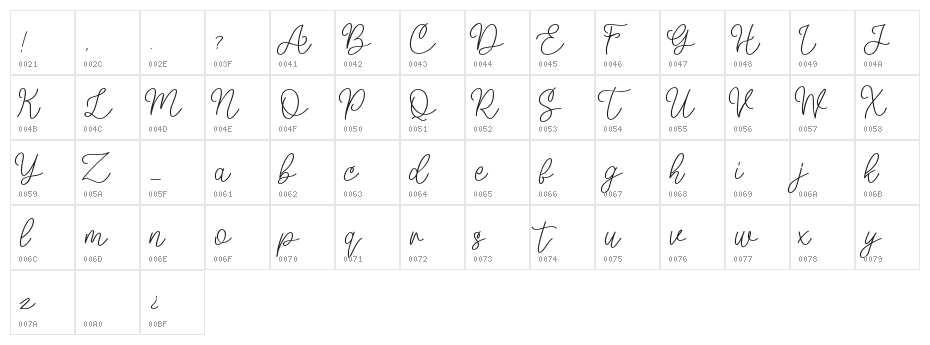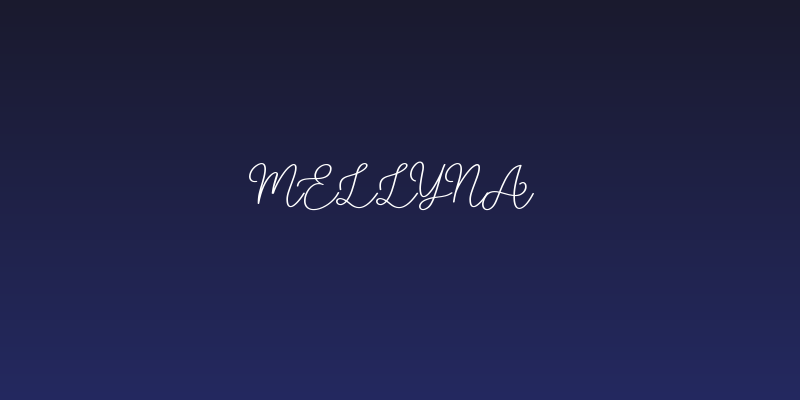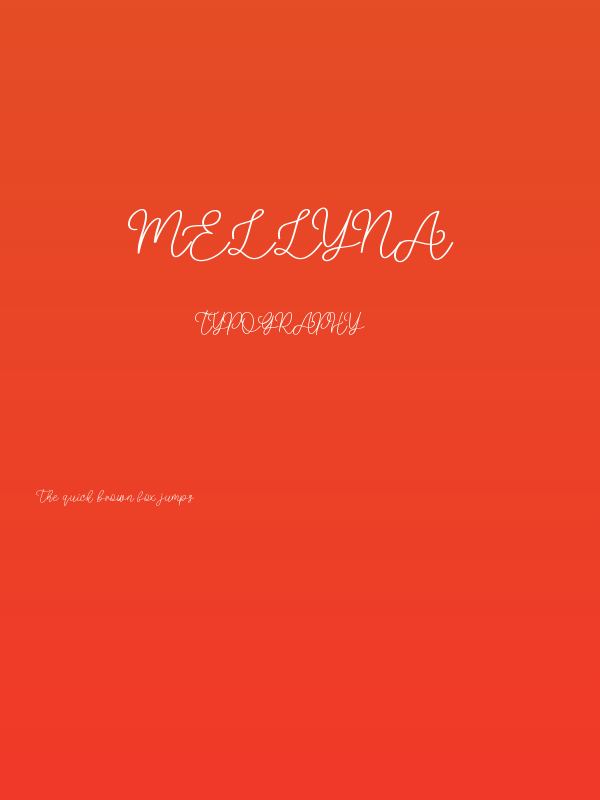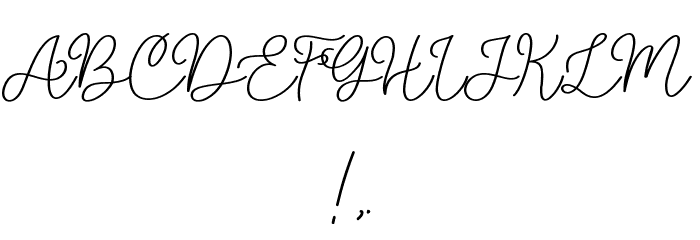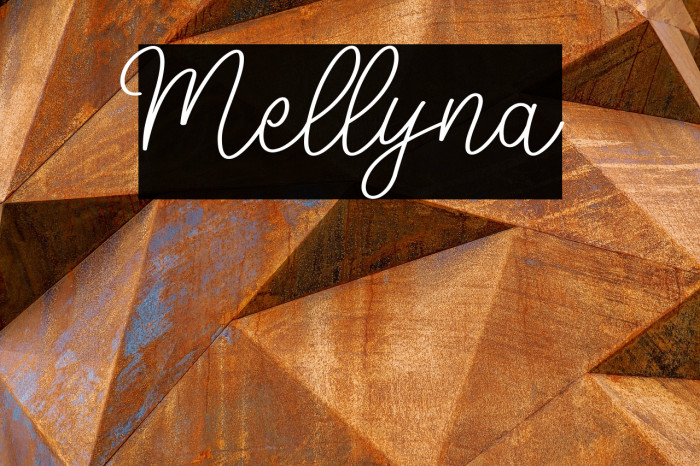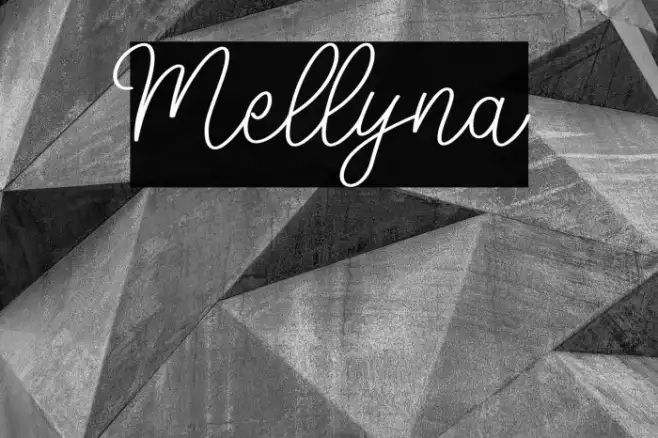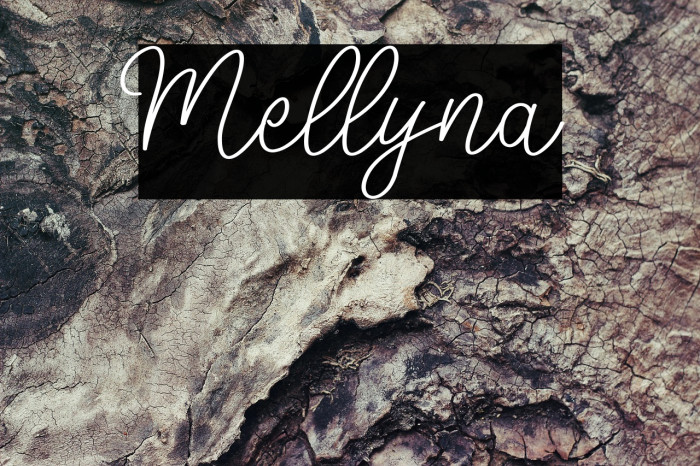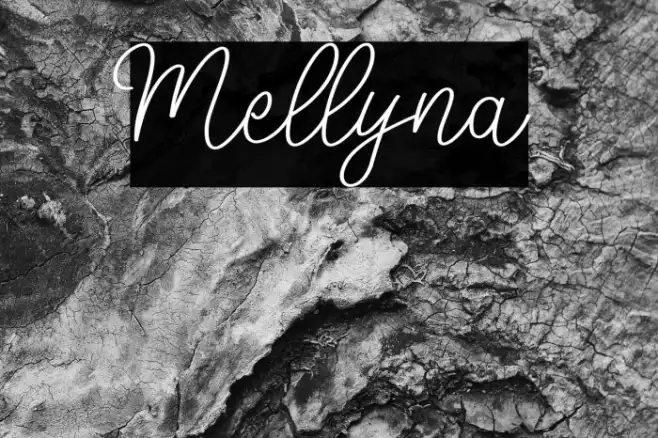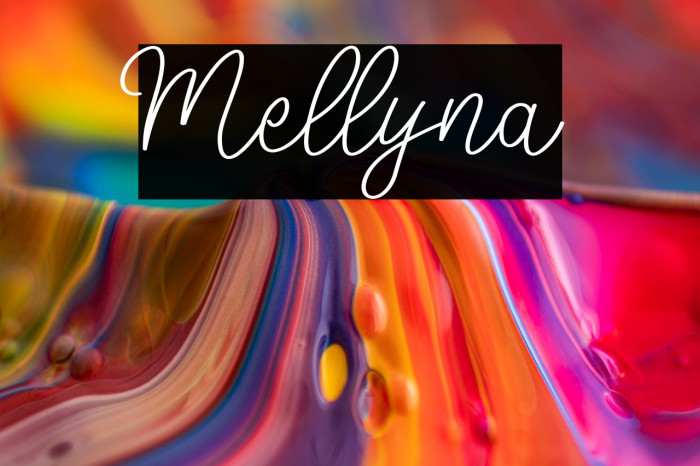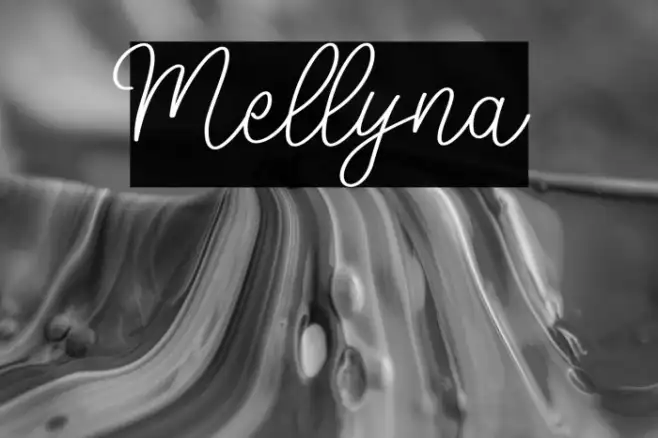
Mellyna Font
Mellyna Description
This font exudes a graceful and elegant handwritten style, characterized by its flowing, cursive letterforms. Each character is intricately designed with smooth curves and delicate loops, giving it a sophisticated and artistic appearance. The uppercase letters are slightly more ornate, with extended flourishes that enhance their visual appeal. The lowercase letters maintain a consistent flow, creating a harmonious and cohesive look. The font's overall aesthetic is both modern and timeless, making it suitable for a variety of design applications.
| Overall Style | Elegant, Artistic |
| Proposed Projects | Ideal for wedding invitations, greeting cards, branding projects, and elegant packaging designs. |